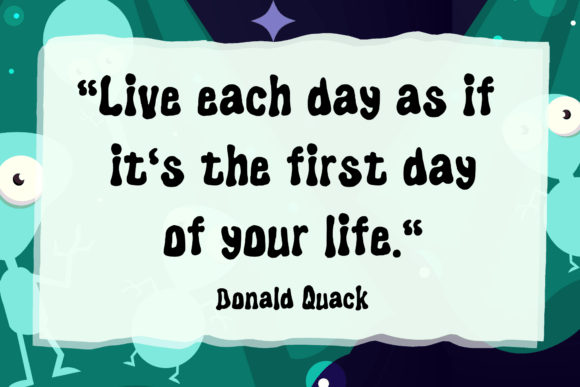
Introducing Alienism Font: The Fun and Psychedelic Alien-Themed Display Font
In the world of typography, fonts play a crucial role in conveying the tone and personality of a design. With the vast array of fonts available, it can be challenging to find the perfect one that captures the essence of your project. However, if you’re looking for a font that is out of this world, look no further than Alienism Font. This fun and psychedelic alien-themed display font is sure to add a touch of whimsy and excitement to any design.
What is Alienism Font?
Alienism Font is a unique and playful typeface that is inspired by the extraterrestrial and the psychedelic. Its wavy and irregular design makes it perfect for adding a casual touch to any project. The font is designed to be versatile and can be used on a wide range of applications, from cartoon-related designs to kids’ school projects, greeting cards, and more.
Key Features of Alienism Font
- Fun and Psychedelic Design: Alienism Font boasts a fun and psychedelic design that is sure to grab attention. Its wavy and irregular shape makes it perfect for creating playful and eye-catching designs.
- Versatile: This font is incredibly versatile and can be used on a wide range of projects, from kids’ school projects to greeting cards and more.
- Easy to Read: Despite its playful design, Alienism Font is easy to read, making it perfect for use in body text or headings.
- Supports Multiple Languages: This font supports multiple languages, making it a great choice for designers who work with international clients.
10 Creative Ways to Use Alienism Font
- Cartoon-Related Designs: Alienism Font is perfect for use in cartoon-related designs, such as animated movies, TV shows, or comics.
- Kids’ School Projects: This font is great for use in kids’ school projects, such as posters, presentations, or worksheets.
- Greeting Cards: Add a touch of whimsy to your greeting cards with Alienism Font. It’s perfect for use in birthday cards, holiday cards, or get-well cards.
- Social Media Graphics: Use Alienism Font to create eye-catching social media graphics that are sure to grab attention.
- Logos and Branding: This font can be used to create fun and playful logos and branding materials for businesses that cater to kids or families.
- Invitations: Alienism Font is perfect for use in invitations, such as birthday party invitations or baby shower invitations.
- Posters and Flyers: Use this font to create eye-catching posters and flyers for events, such as concerts, festivals, or sales.
- Packaging Design: Alienism Font can be used in packaging design to add a touch of whimsy and fun to product packaging.
- Web Design: This font can be used in web design to create playful and eye-catching website headers, buttons, and other design elements.
- Advertising: Use Alienism Font to create eye-catching ads that are sure to grab attention.
Tips and Tricks for Using Alienism Font
- Use it Sparingly: While Alienism Font is fun and playful, it can be overwhelming if used excessively. Use it sparingly to add a touch of whimsy to your design.
- Pair it with Other Fonts: Alienism Font can be paired with other fonts to create a unique and interesting design. Try pairing it with a sans-serif font for a fun and playful look.
- Experiment with Colors: This font looks great in bright and bold colors. Experiment with different colors to find the perfect combination for your design.
| Font Name | Alienism Font |
In conclusion, Alienism Font is a fun and psychedelic alien-themed display font that is perfect for adding a touch of whimsy to any design. Its versatile design makes it suitable for use in a wide range of applications, from cartoon-related designs to kids’ school projects and more. With its easy-to-read design and support for multiple languages, Alienism Font is a great choice for designers who want to create playful and eye-catching designs.